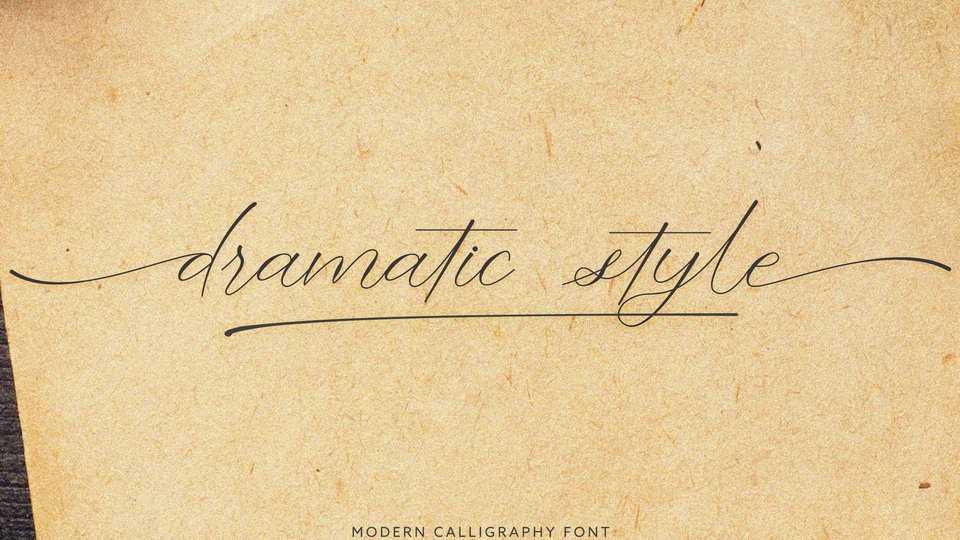
Download Dramatic Style font, a beautiful script typeface with swashes that looks natural, elegant and perfect for any project. Dramatic Style is perfect for branding, wedding, birthday cards and invitations, social media and more
Designer: JunCreative